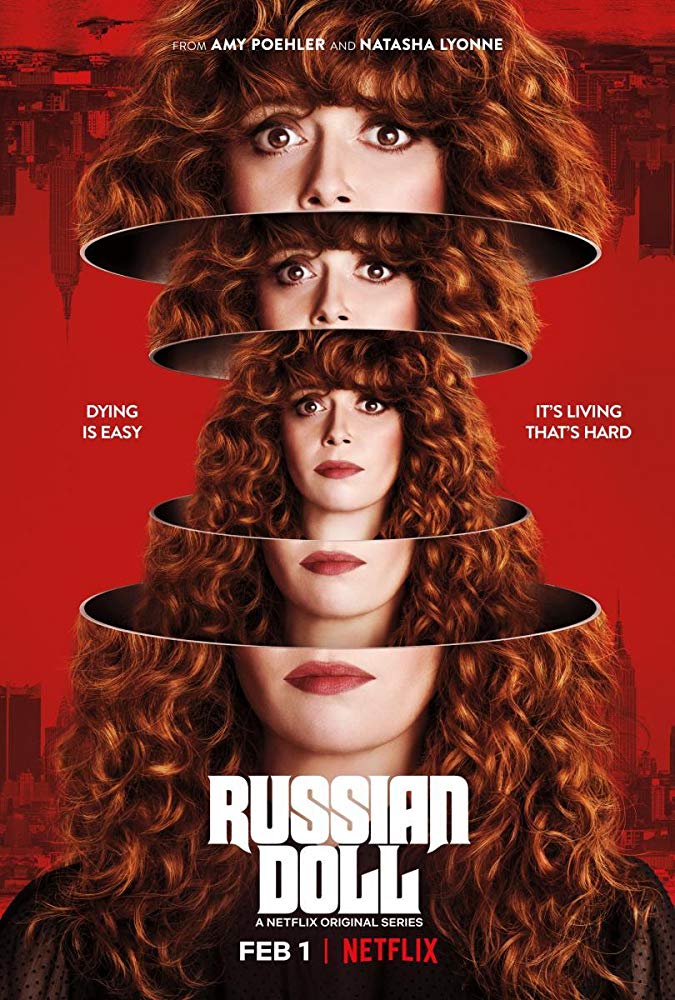
Russian Doll Font
ComedyRussian Doll is a Netflix original comedy-drama web series created by Natasha Lyonne, Leslye Headland, and Amy Poehler. The show follows a woman who becomes trapped in a mysterious time loop, reliving the same day over and over again.
The TV series title Russian Doll seems to use a altered version of a font called Macbeth. Linotype's Macbeath is a heavy, condensed Art Deco typeface. A free alternative to Linotype's MacBeth is MacBeth OldStyle by CastCraft. You can download it for free in the Fonts Used Section.